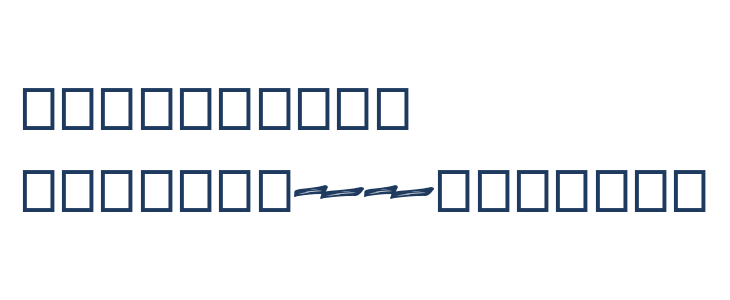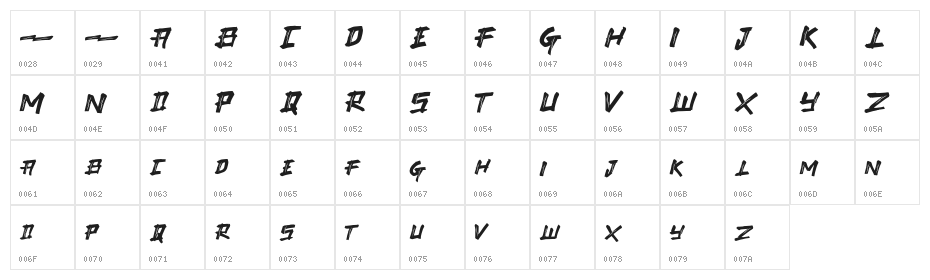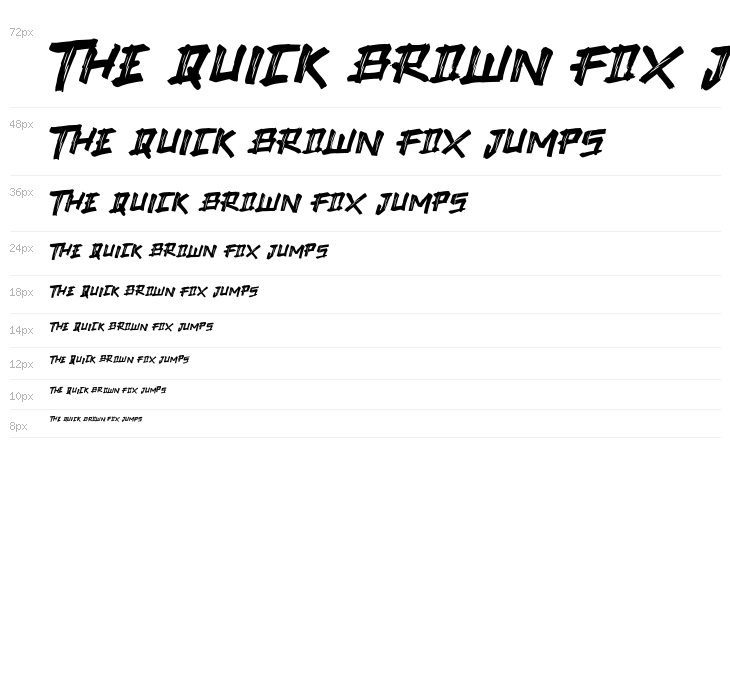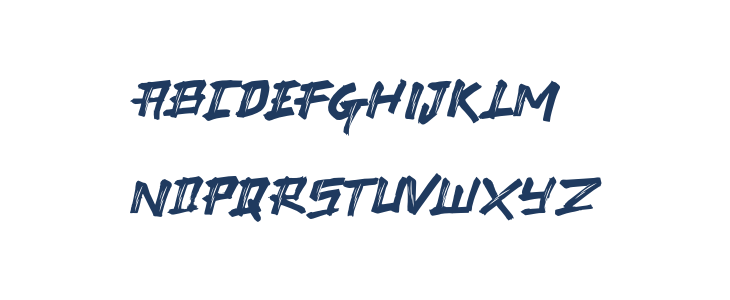
TAKASIH Font
TAKASIH Description
This font features a bold and dynamic style with sharp, angular edges and a brush-like texture. The uppercase letters are designed with a sense of movement and energy, making them stand out with a striking presence. The strokes are thick and uneven, giving the font an edgy and rebellious feel. The lowercase letters maintain the same boldness and angularity, ensuring consistency throughout the typeface. The numbers and special characters follow the same design principles, providing a cohesive look. This font is ideal for projects that require a strong and impactful visual statement.
| Proposed Projects | Perfect for posters, album covers, streetwear branding, and any project needing a bold, edgy aesthetic. |